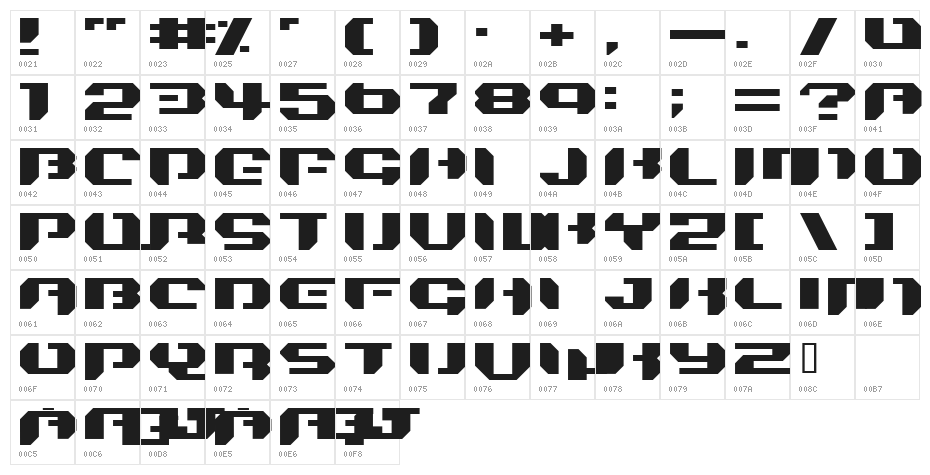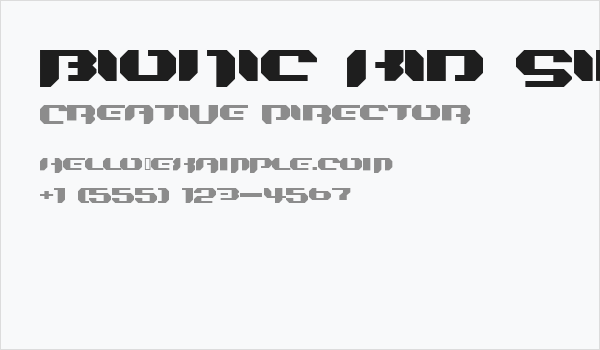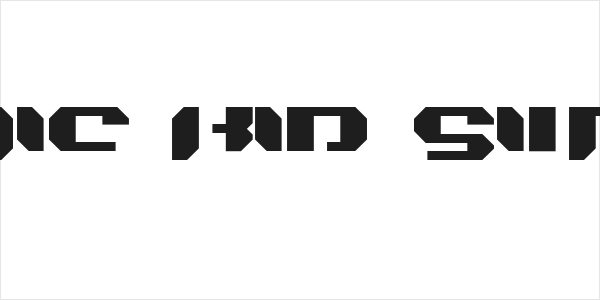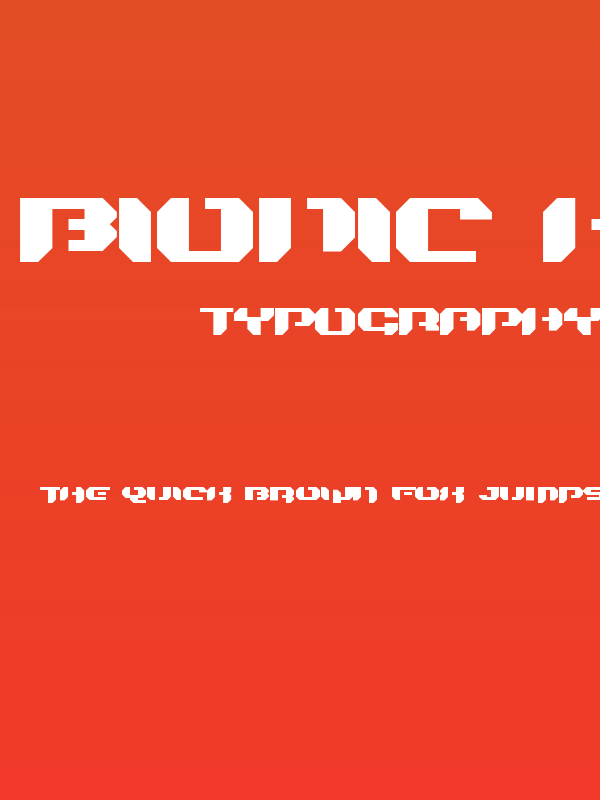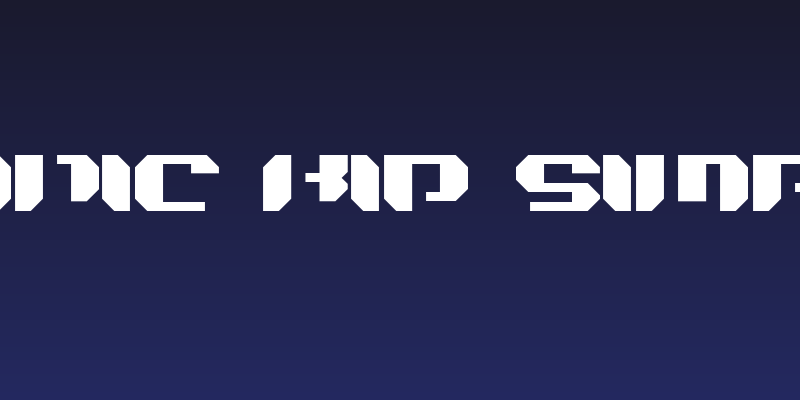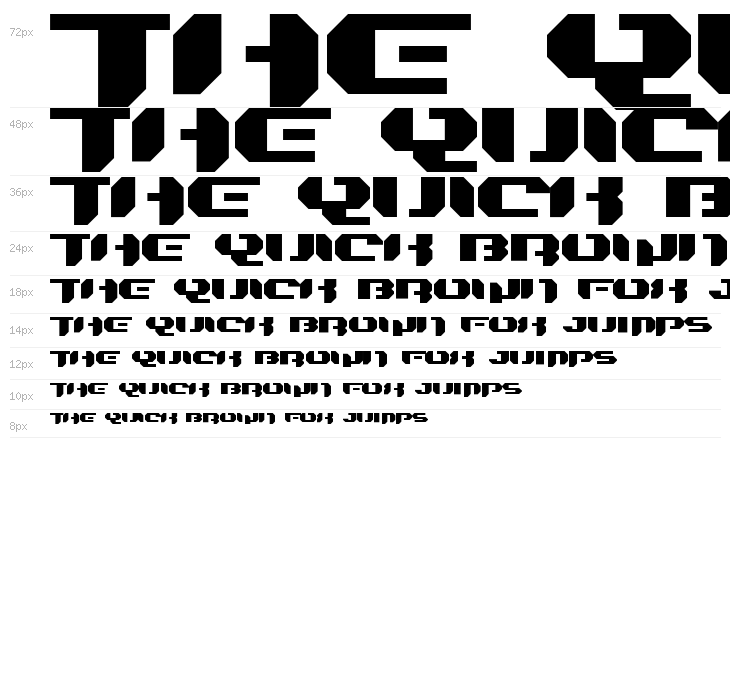
Bionic Kid Simple Font
Bionic Kid Simple Description
This font features a bold, futuristic design with geometric shapes and sharp angles, creating a dynamic and modern appearance. The characters are constructed with a blocky, stencil-like style, giving them a mechanical and industrial feel. The uppercase and lowercase letters maintain a consistent structure, with uniform stroke widths that emphasize the font's boldness. The numerals and special characters follow the same design principles, ensuring a cohesive look across all elements. This font is ideal for projects that require a strong, impactful visual presence.
Overall StyleFuturistic
Proposed ProjectsIdeal for sci-fi themed posters, video game titles, tech branding, and futuristic designs.